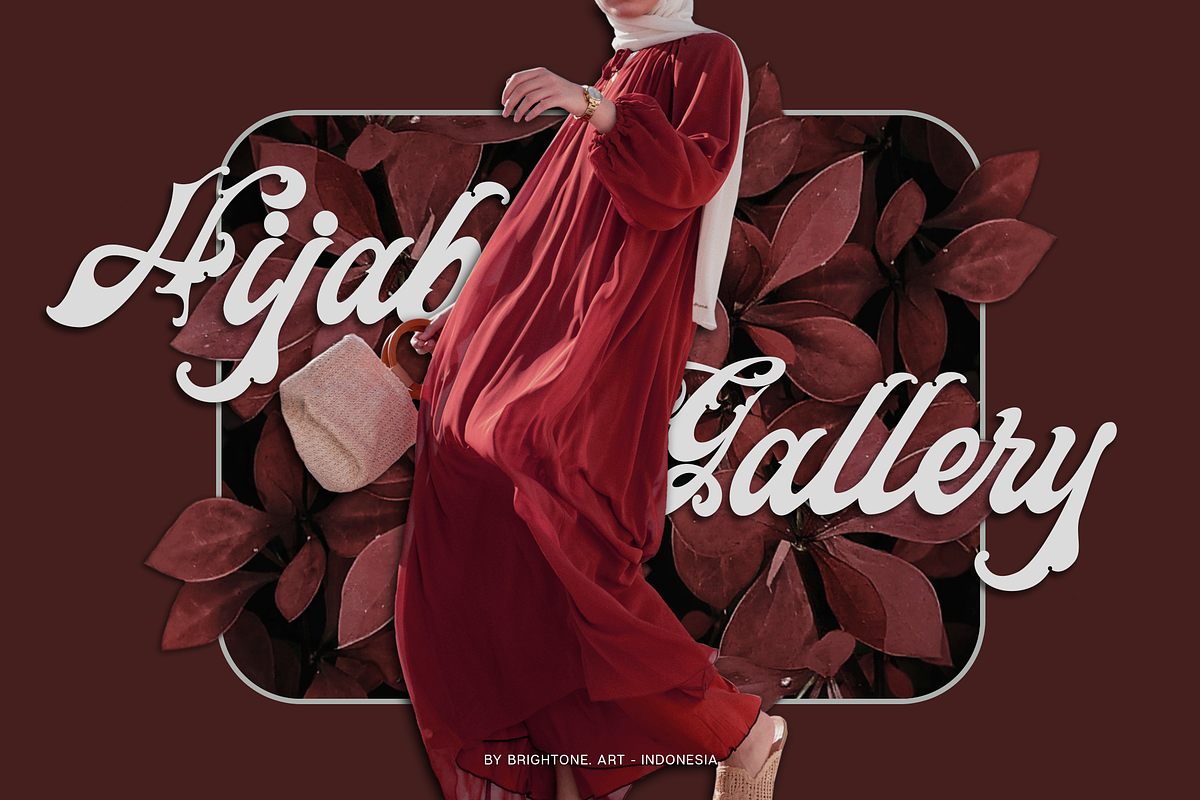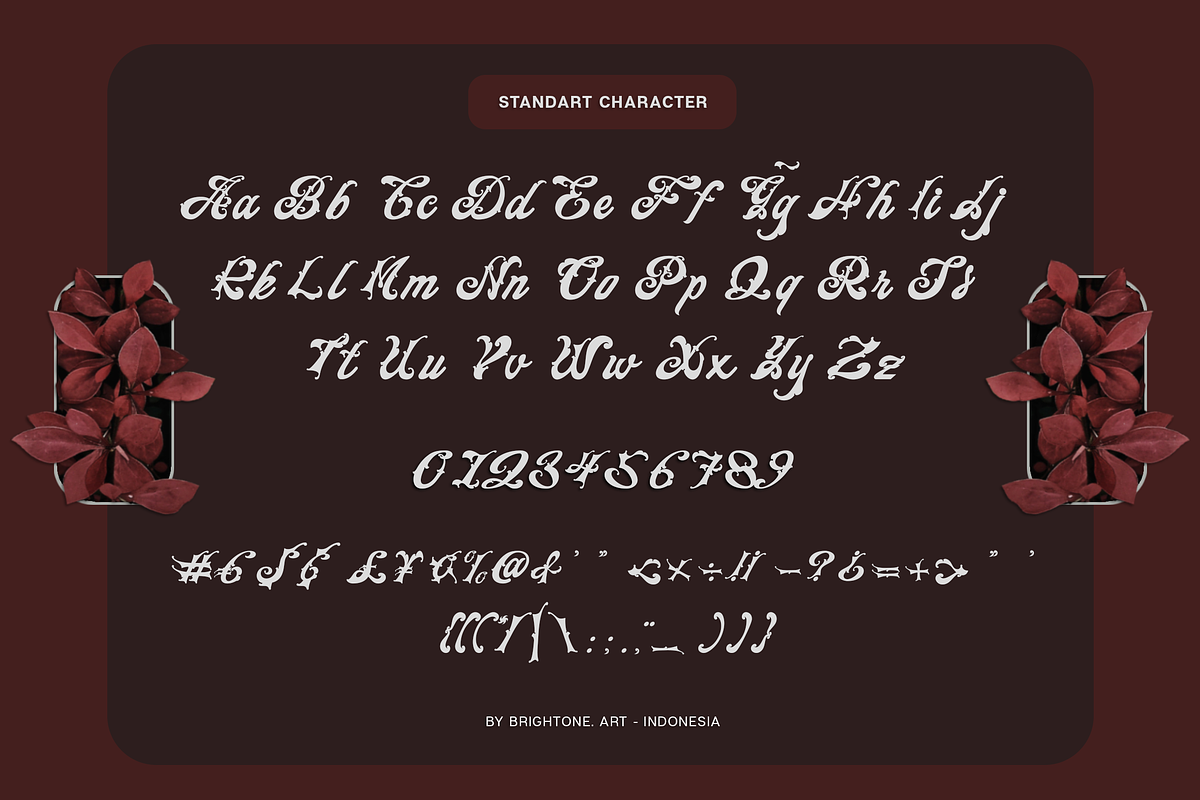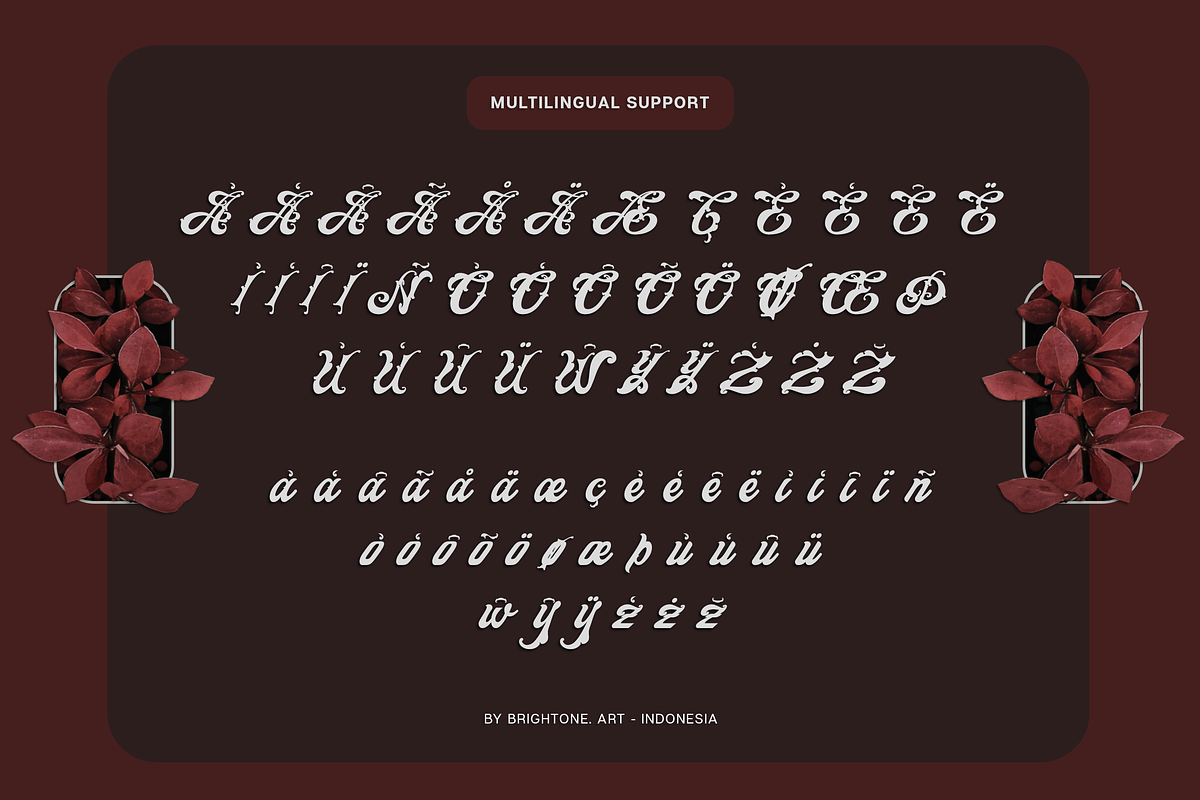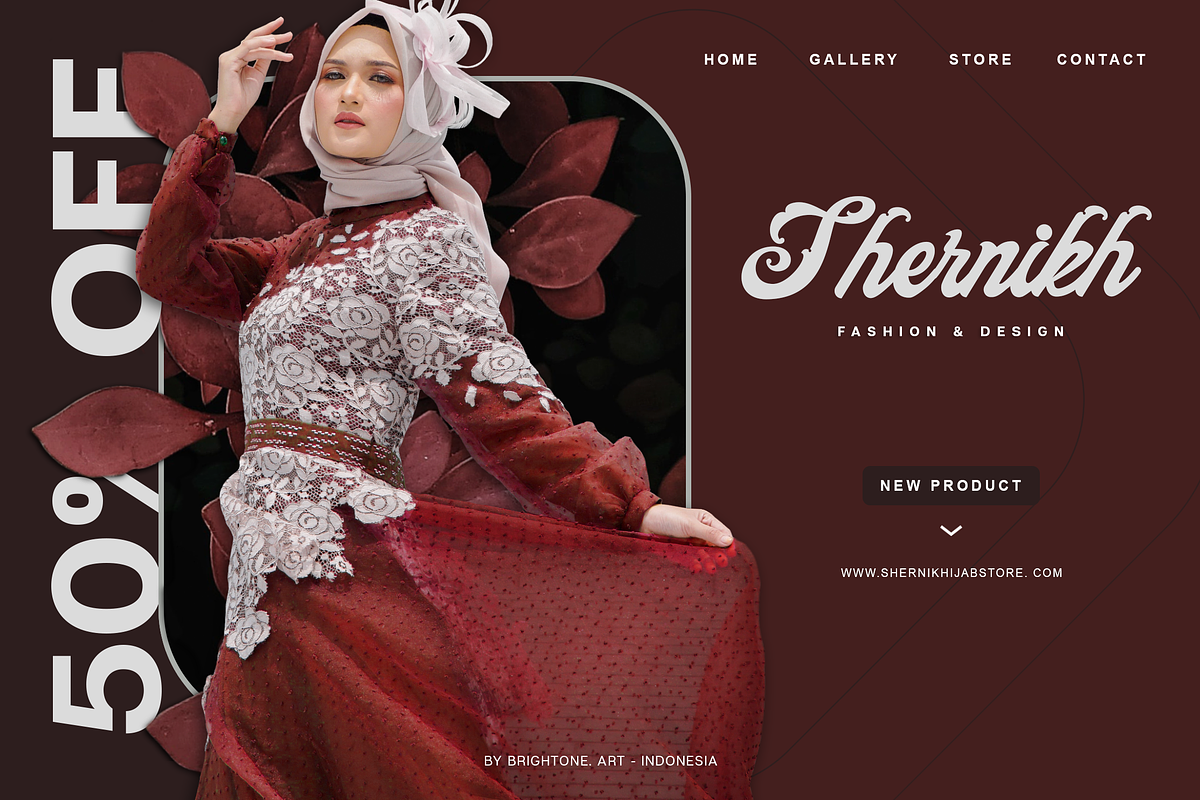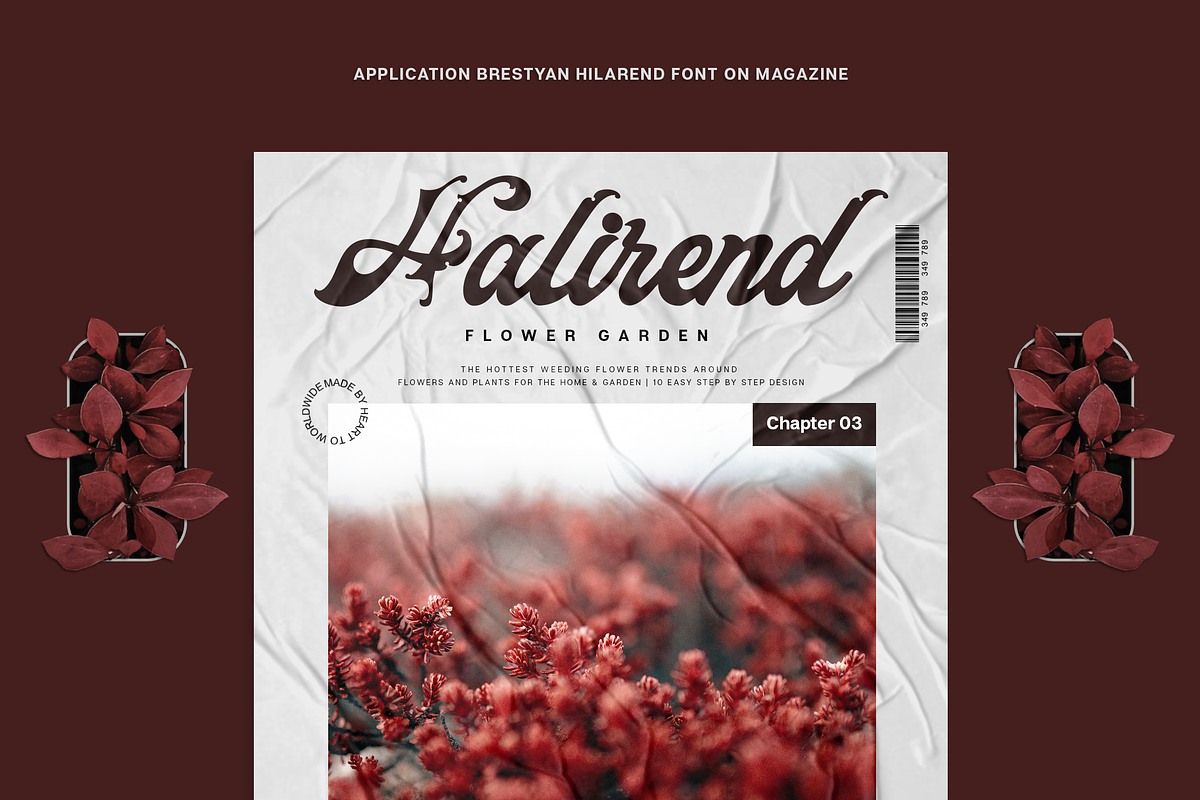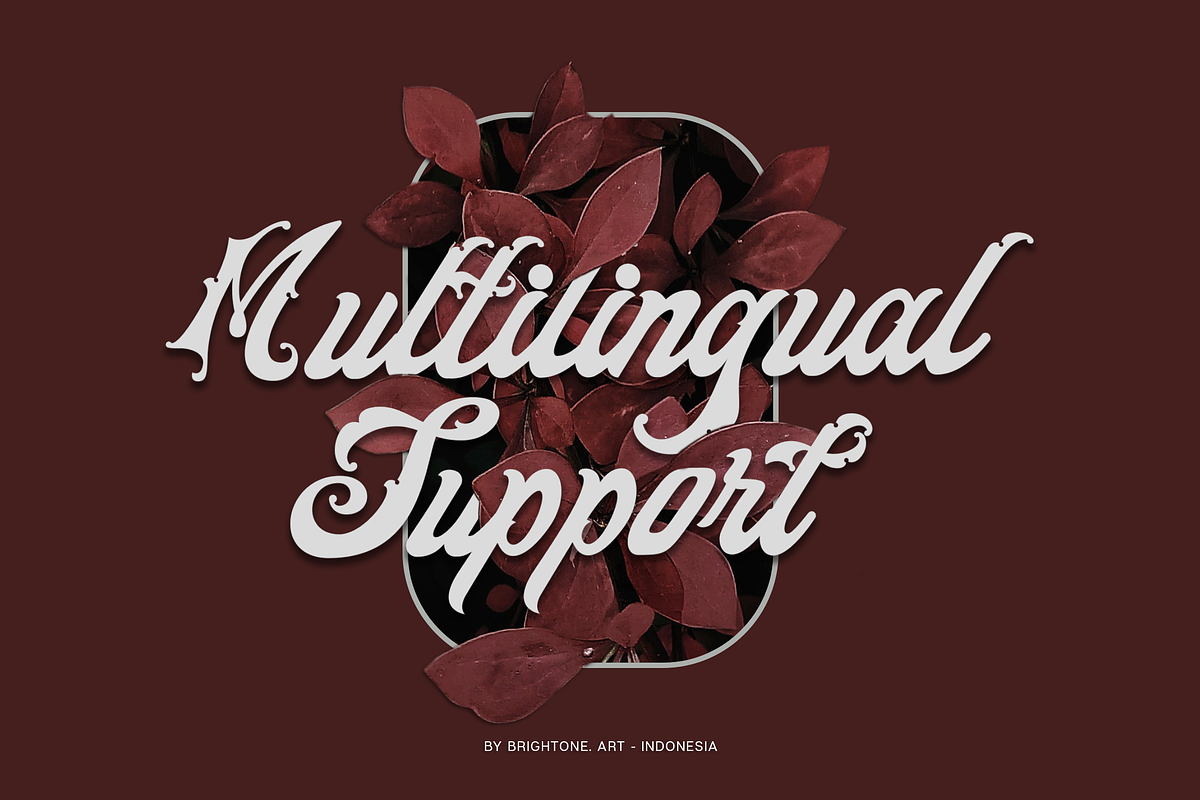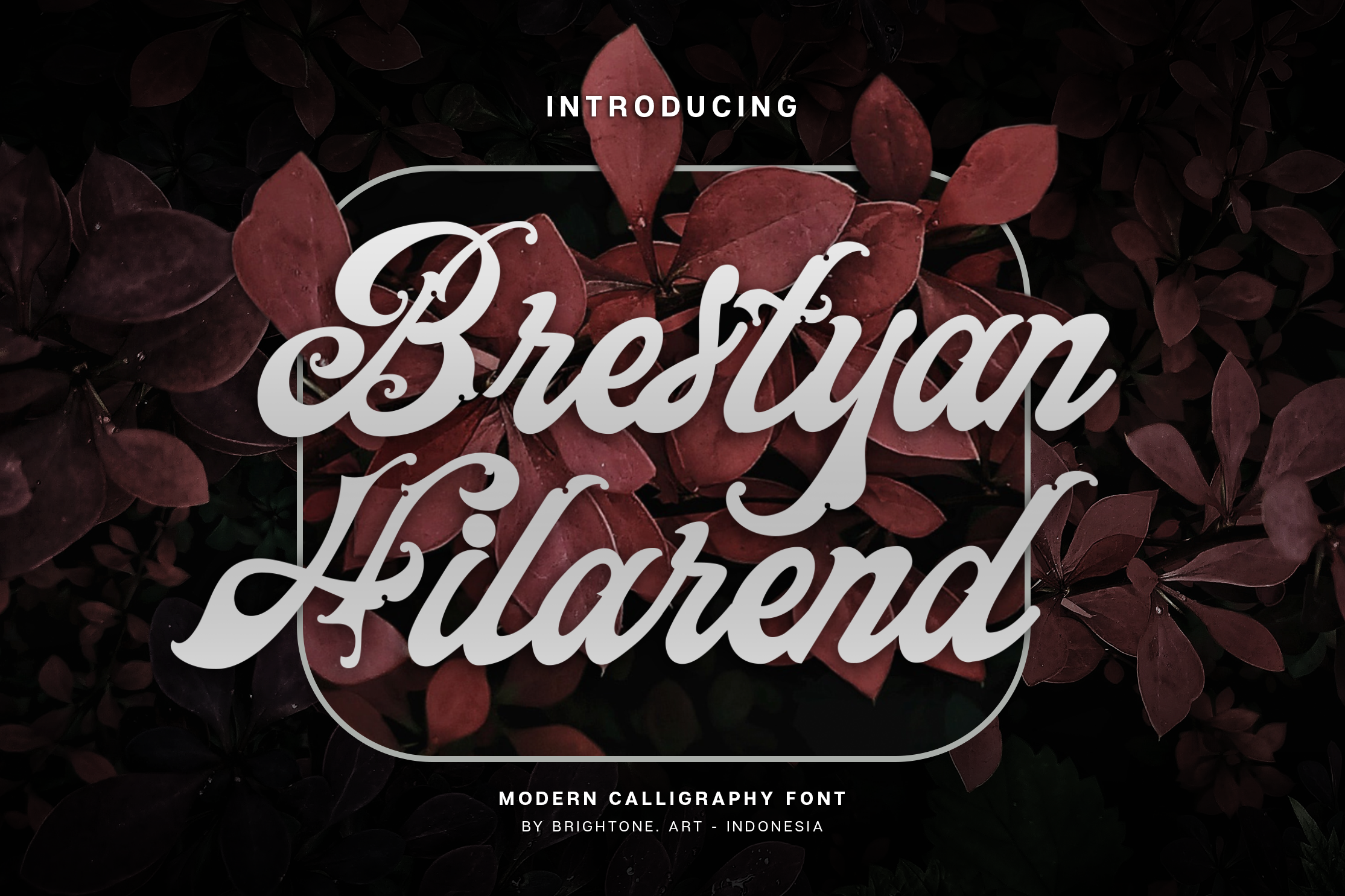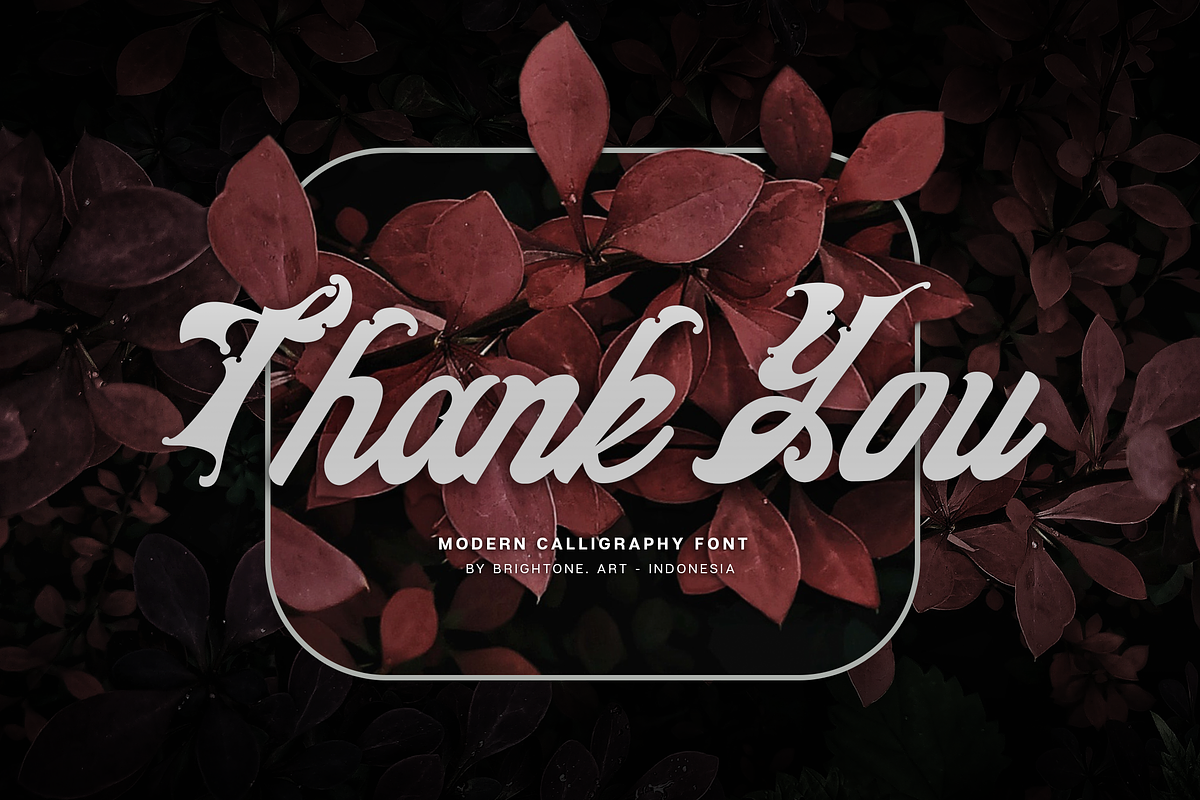
Brestyan Hillarend - Decorative Font
BRESTYAN HILLAREND is script handwritten font with good decorative style and vintage touch, these font includes:
- Uppercase and Lowercase Characters, Numbers and Punctuation.
- Ligatures.
- Multilingual Support (Eastern, Central and Western European countries).
BRESTYAN HILLAREND font is suitable to use for all purpose for your logo lettering, logo, label, packaging, sticker, branding and many more.